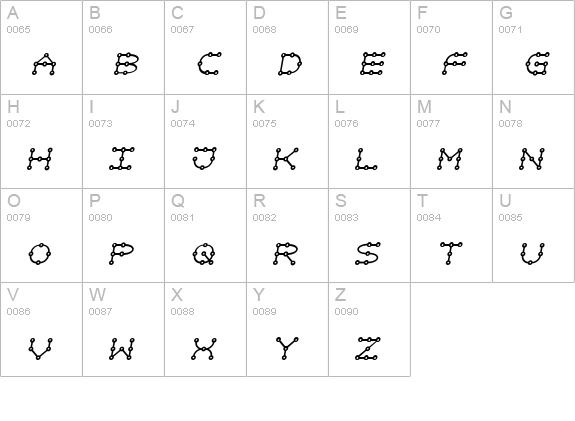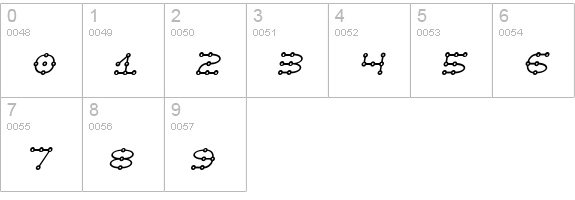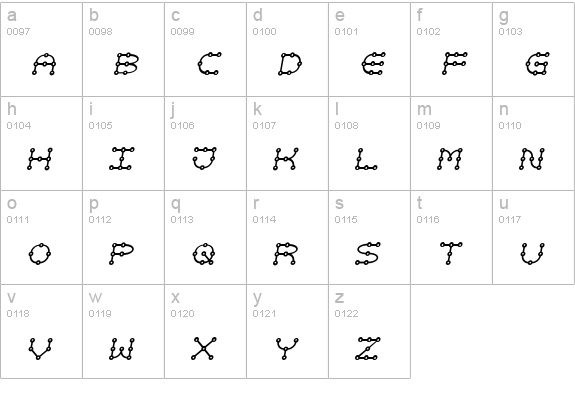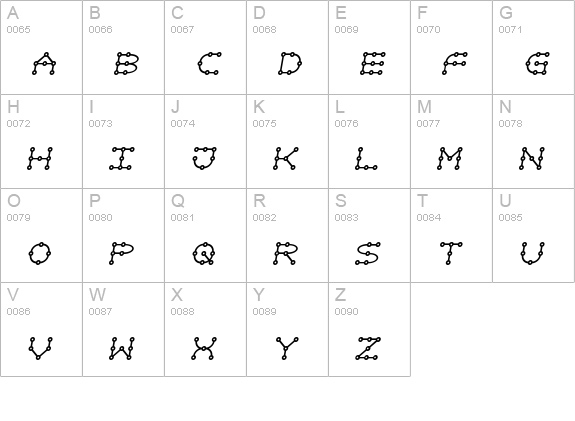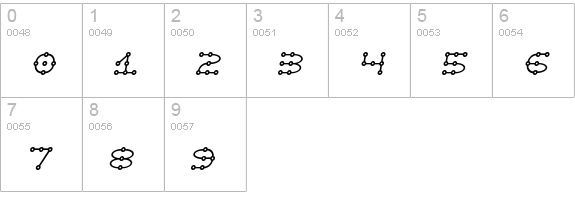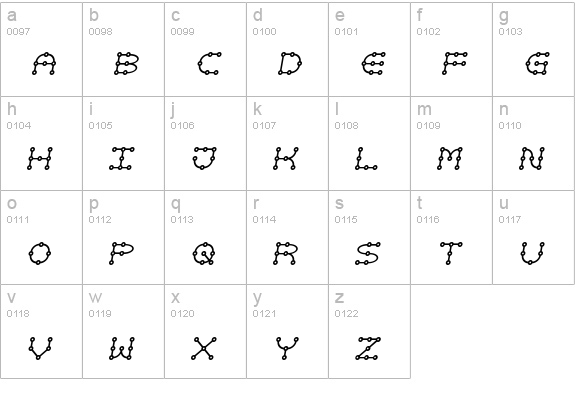
Not just a toy Font Details
Not just a toy font is a whimsical and playful typeface that brings a delightful touch to any design project. With its charming and unique look, this font is perfect for creating eye-catching headlines, greeting cards, invitations, and more. The quirky and fun nature of Not just a toy font will add a touch of cheer to your designs and capture the attention of your audience. Best of all, Not just a toy font is available for free! You can easily download this font at FontsMarket.com and start using it in your projects right away. Whether you're creating a poster for a children's event or designing a fun birthday card, Not just a toy font will bring a sense of joy and creativity to your work. Don't miss out on this fantastic font that is sure to make your designs stand out!